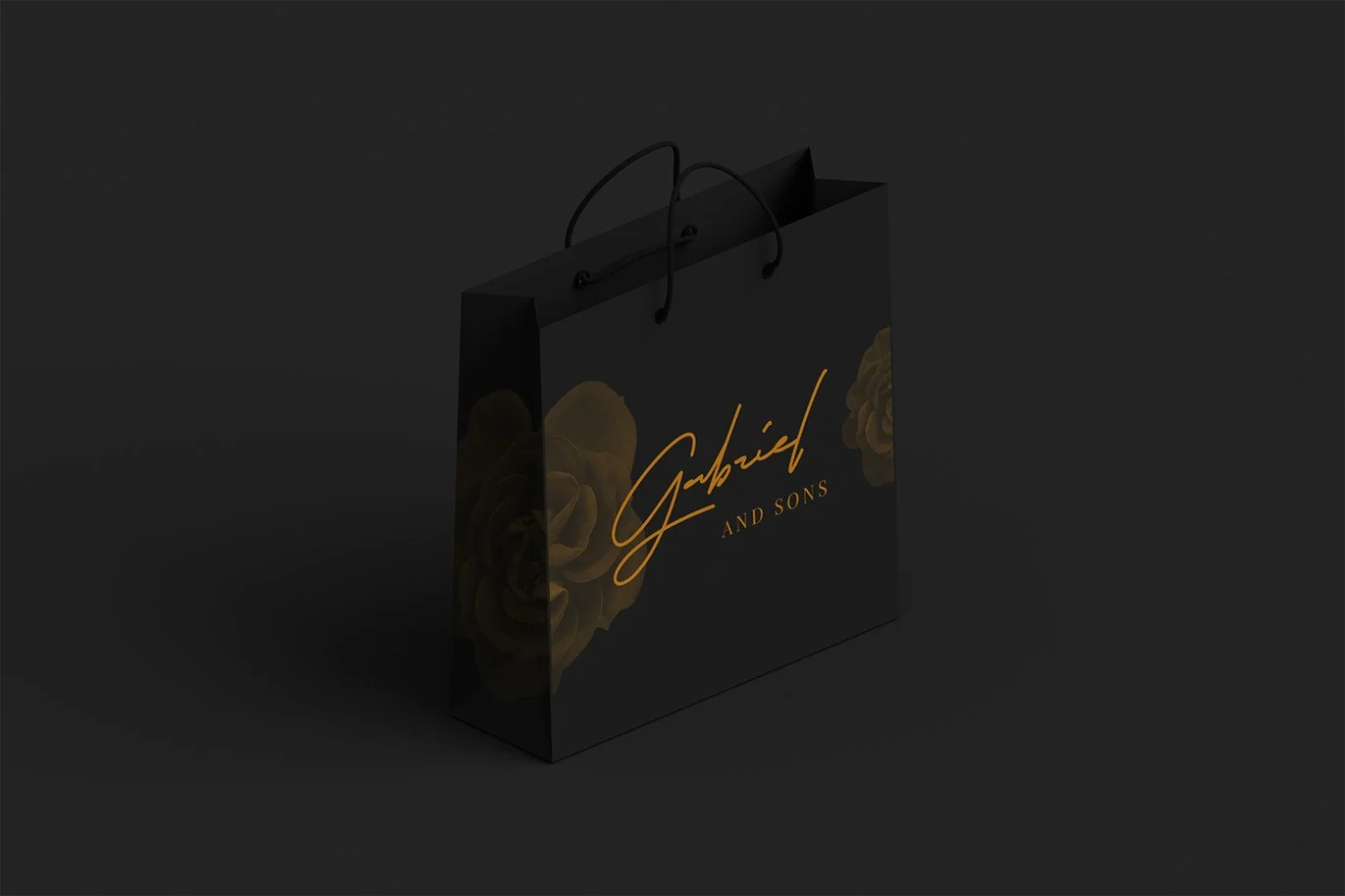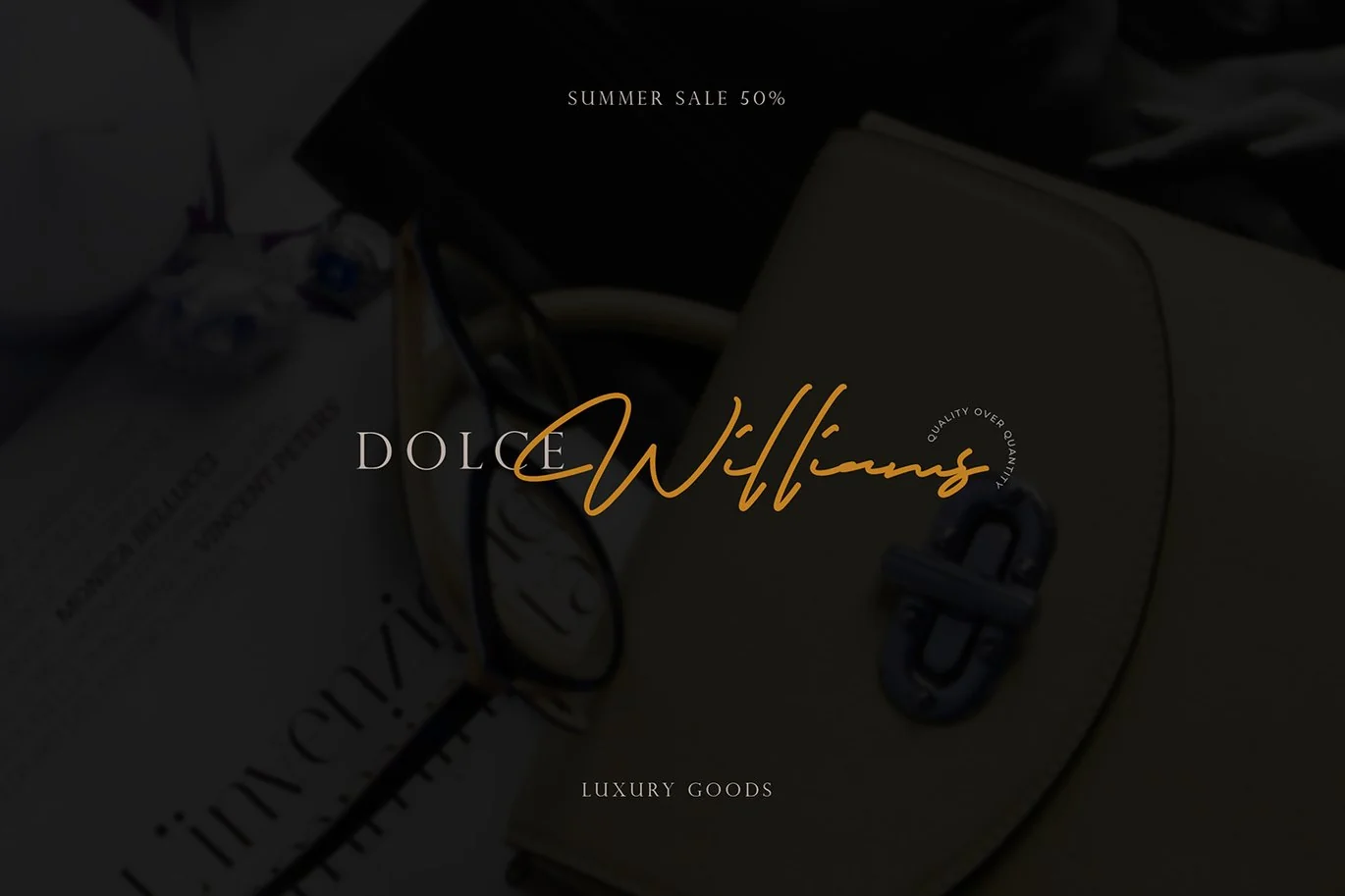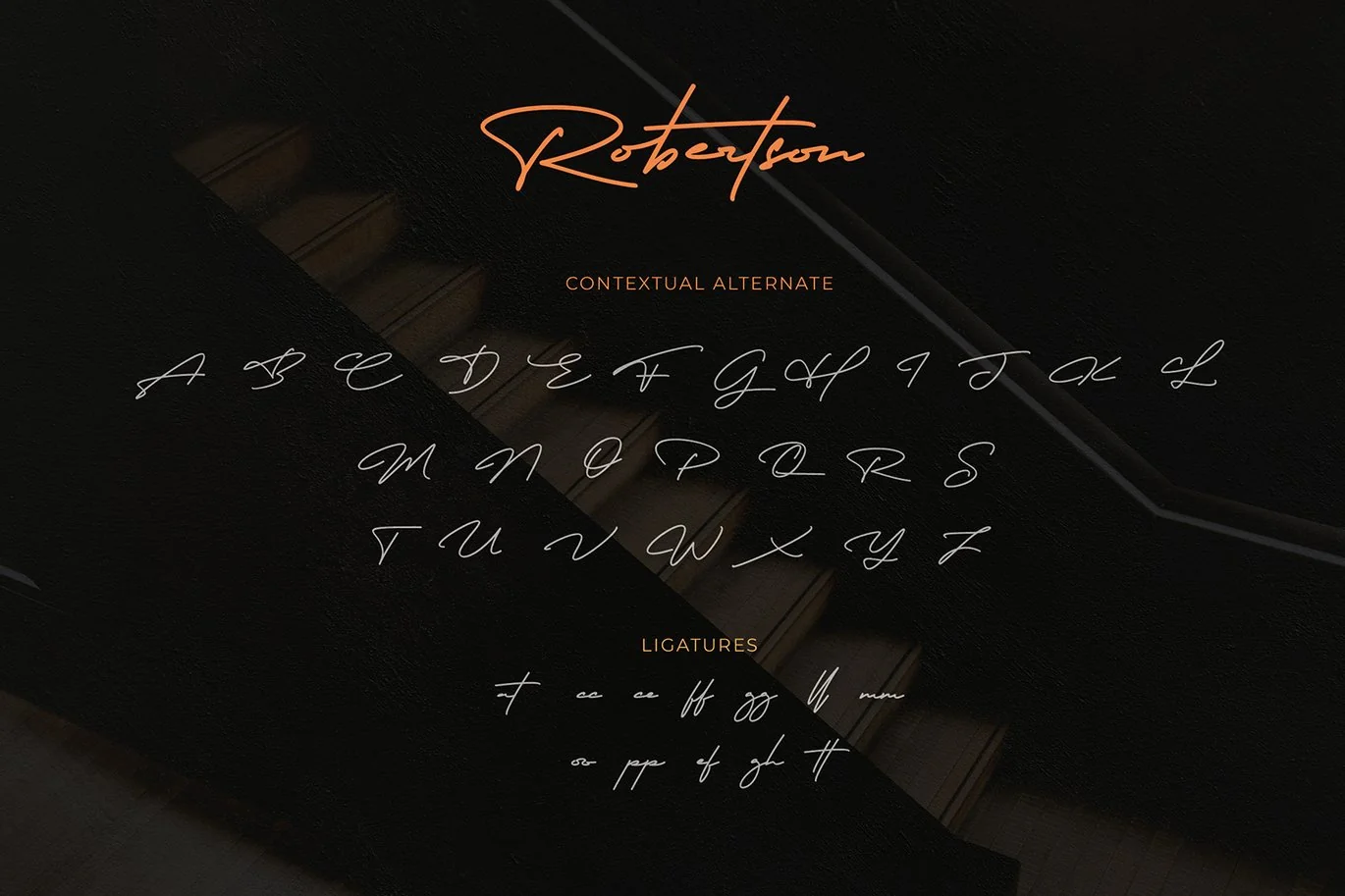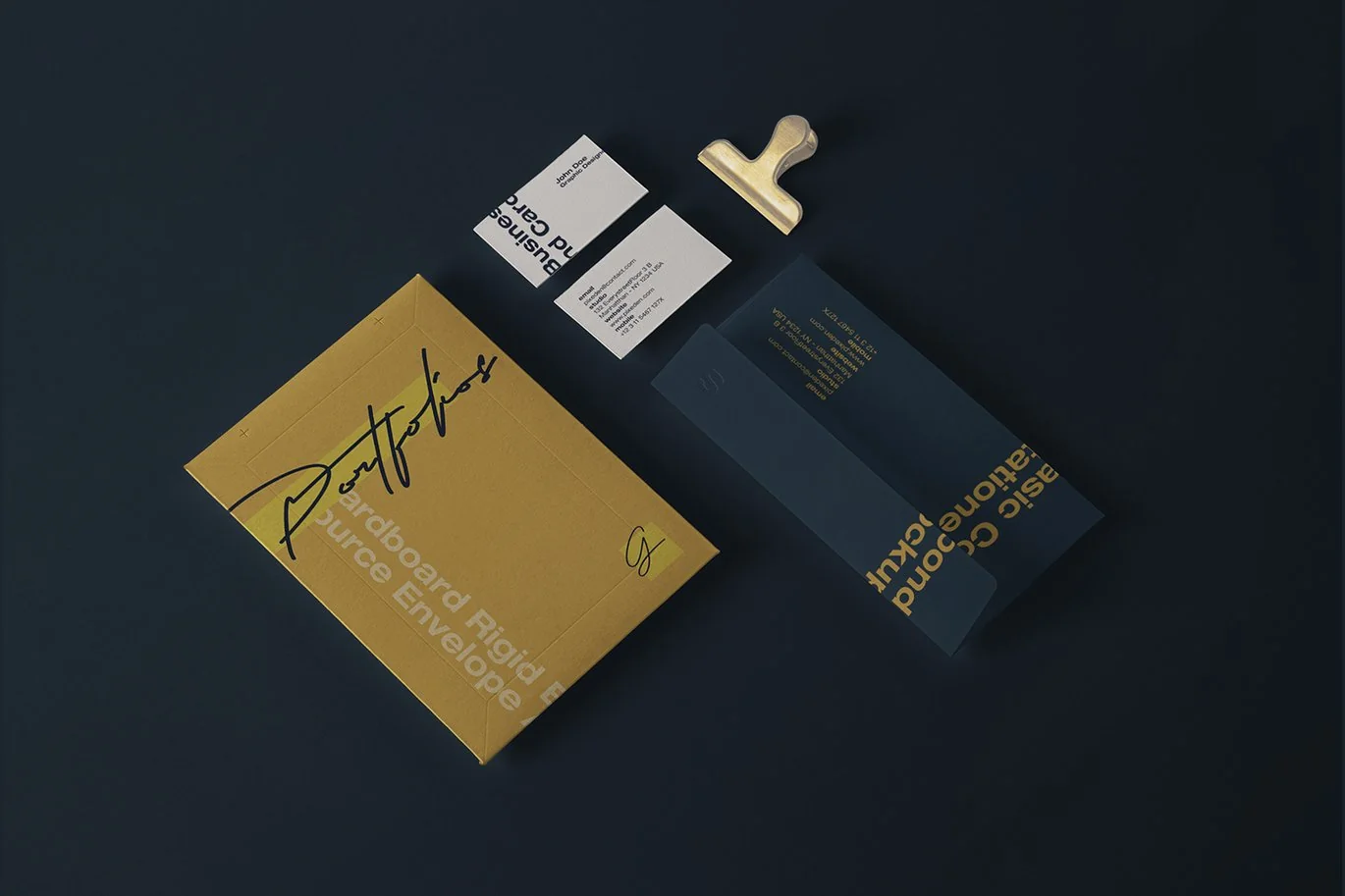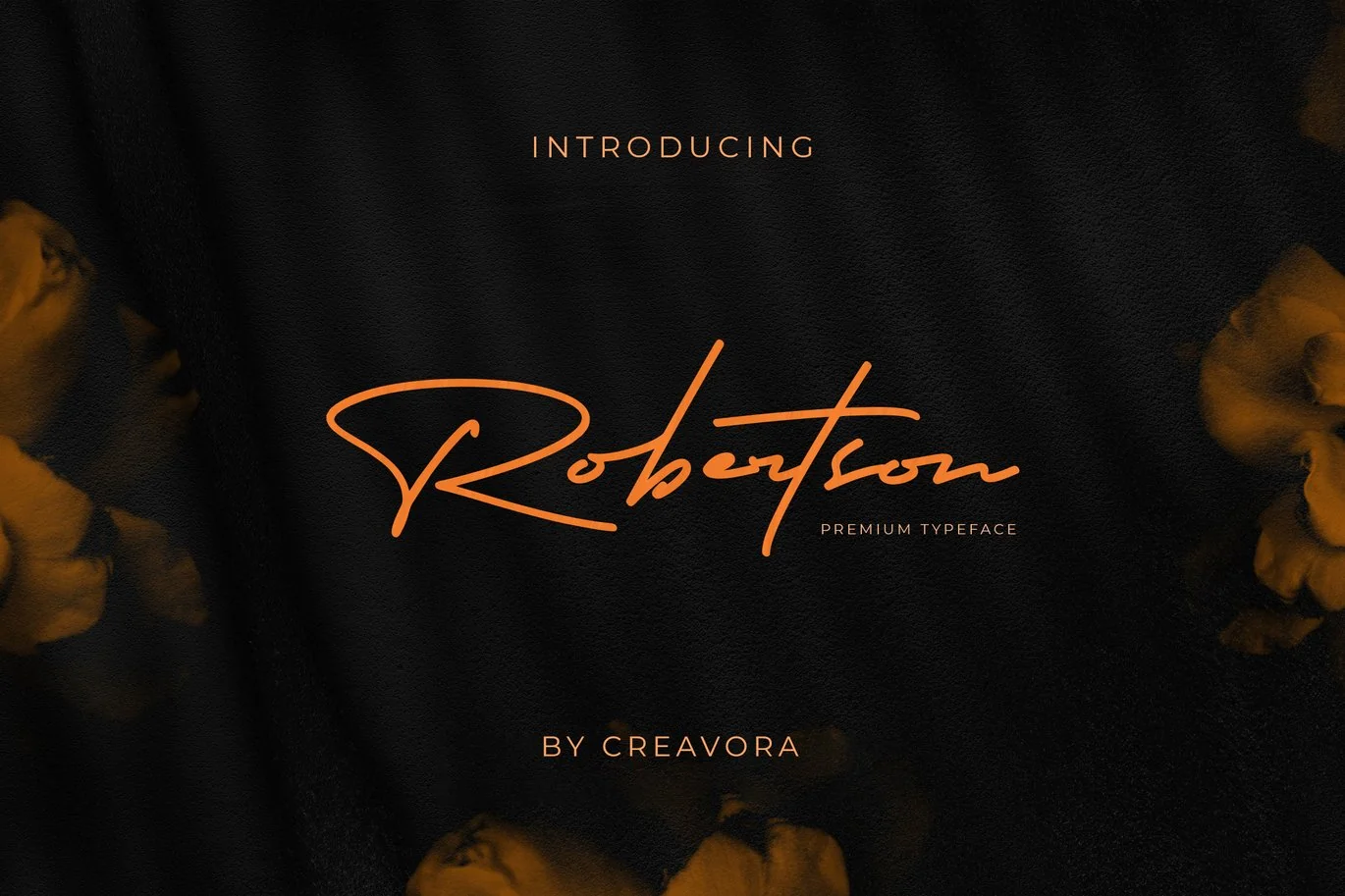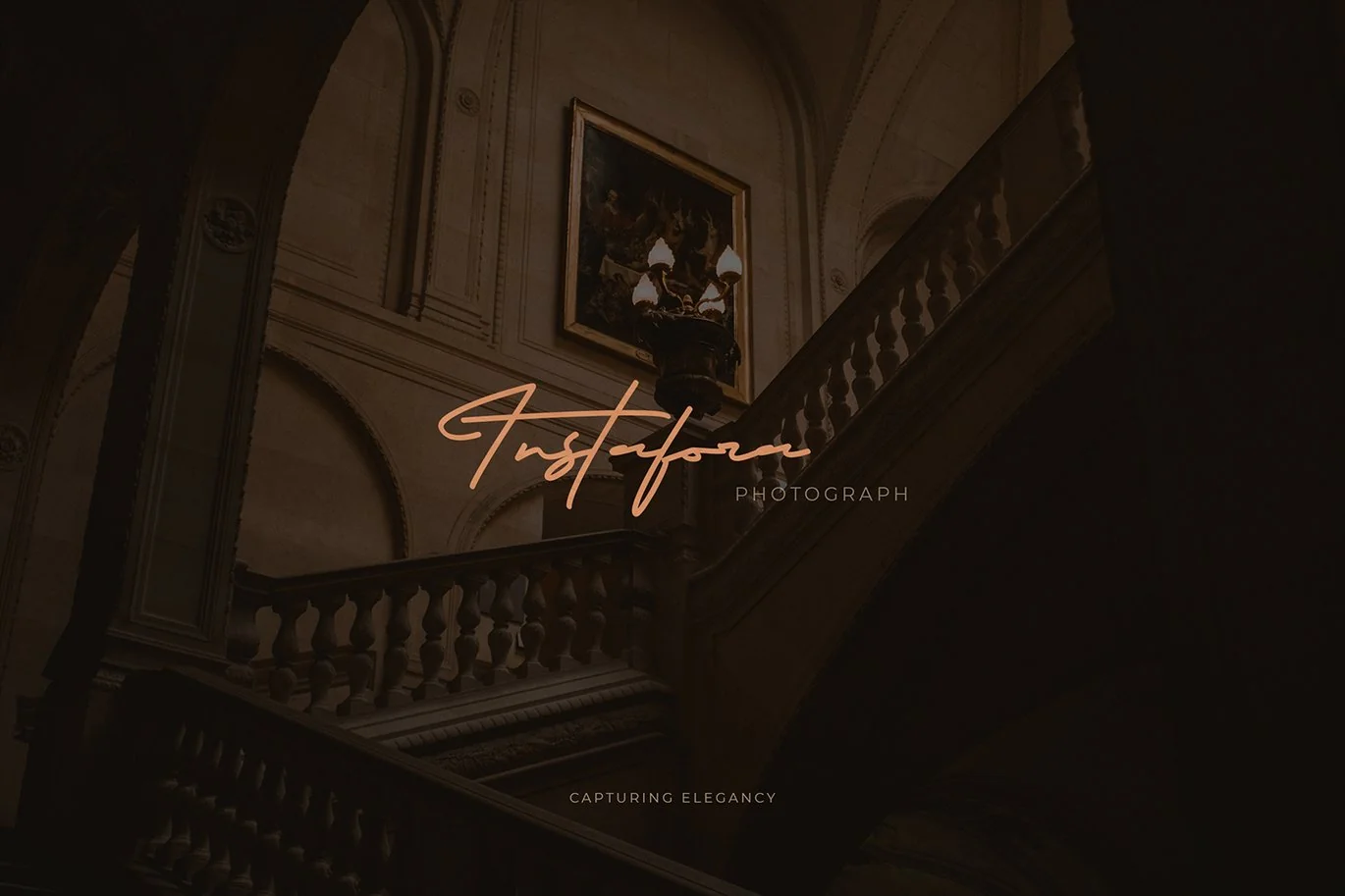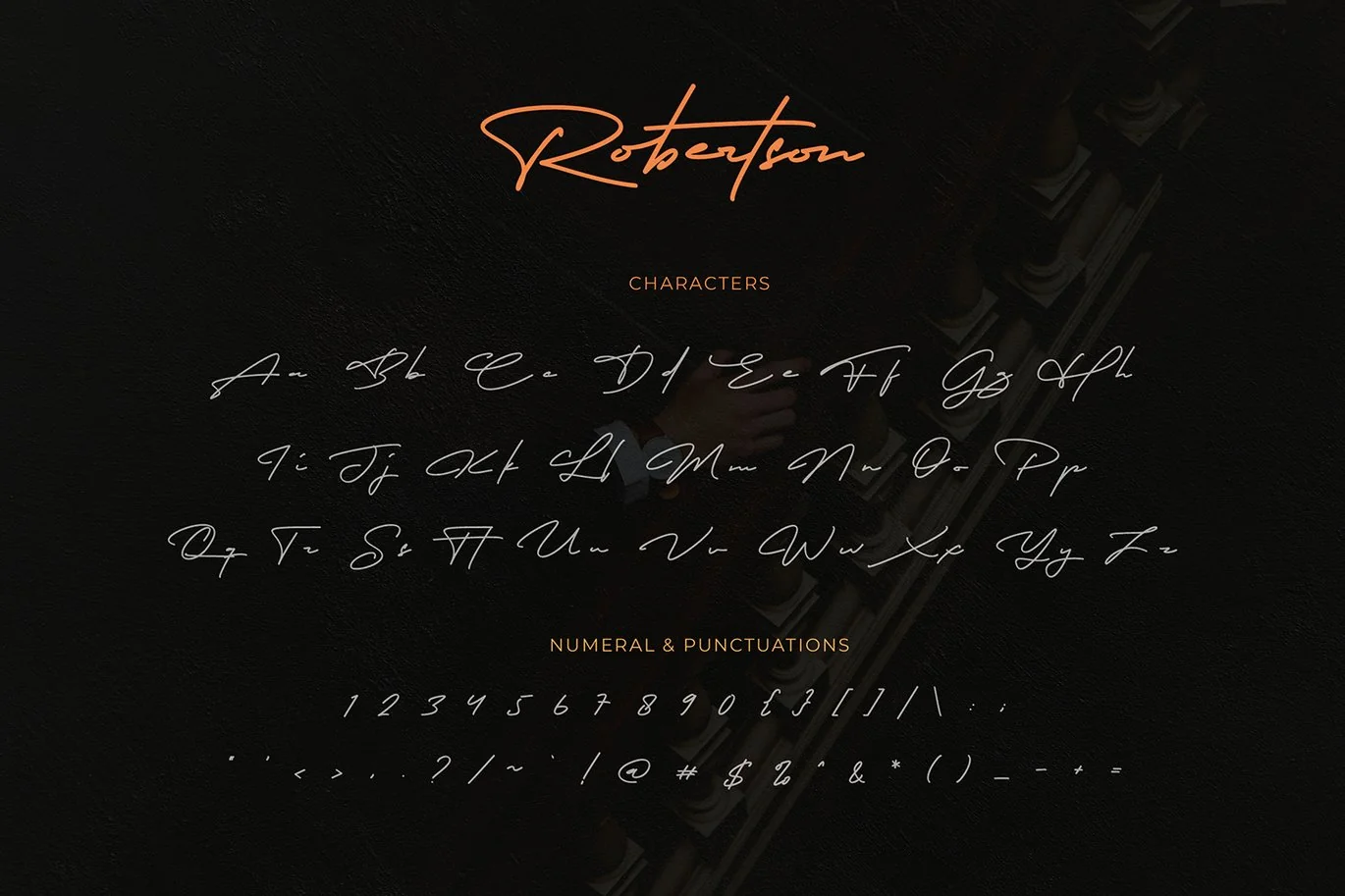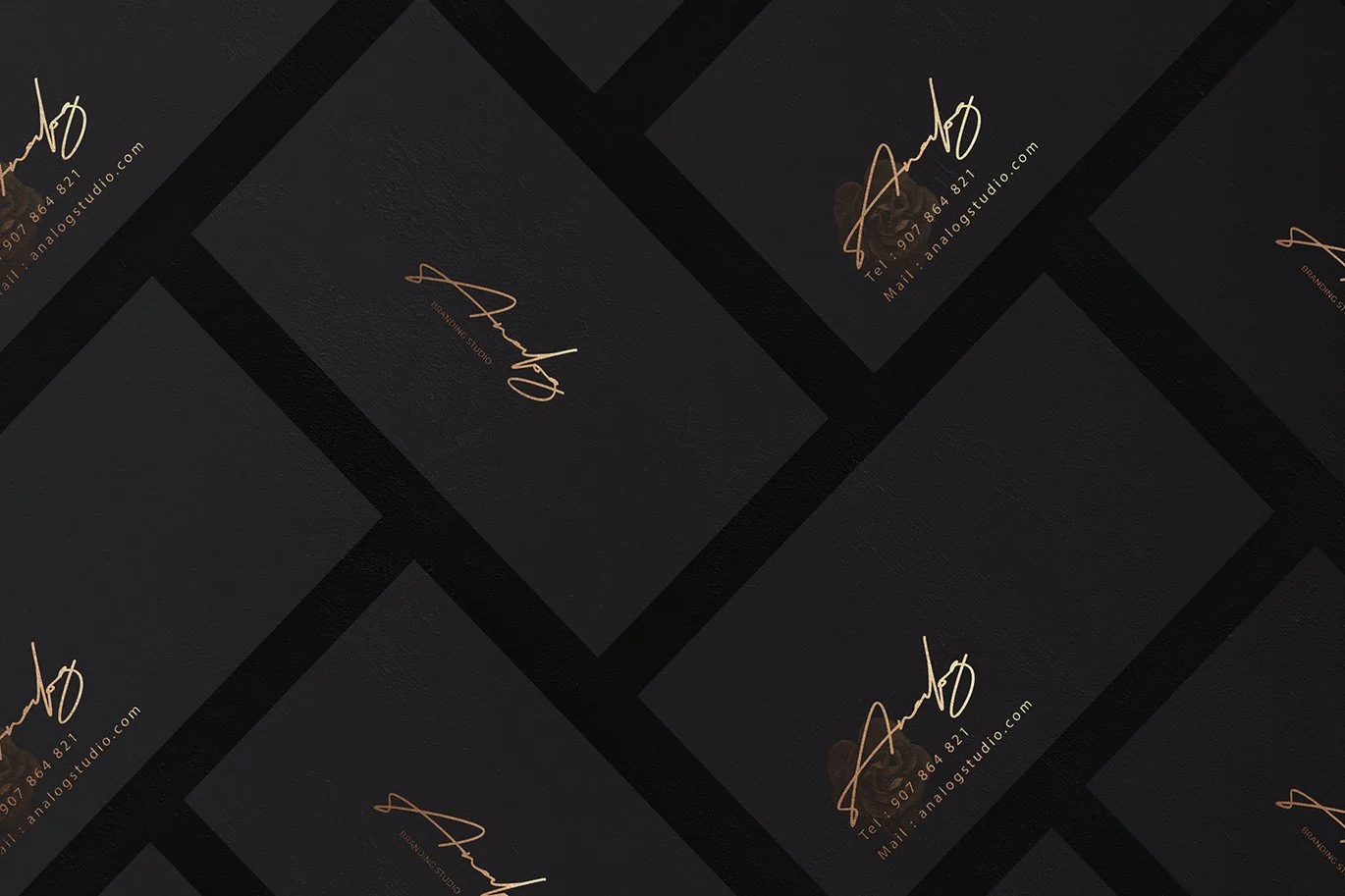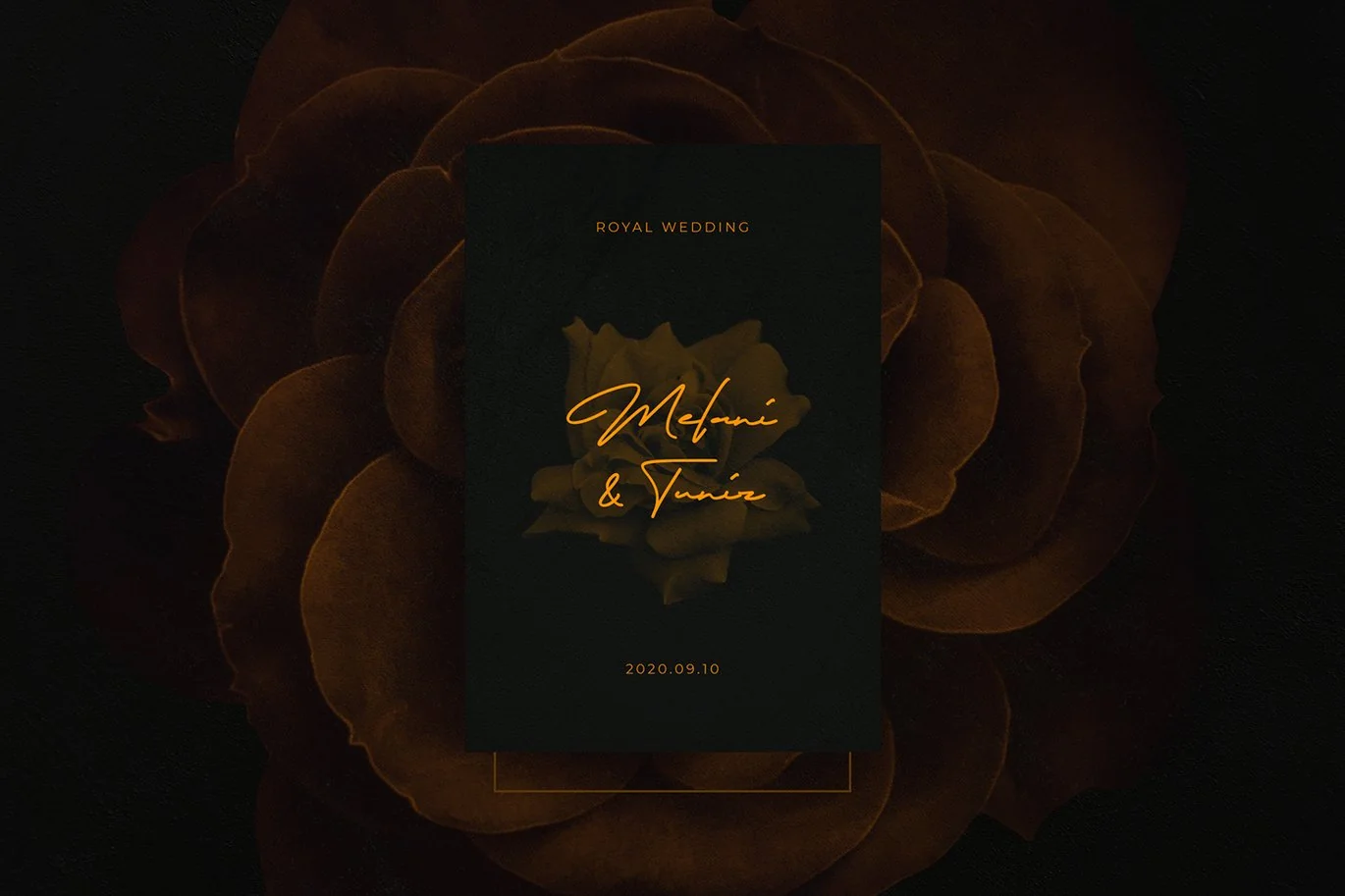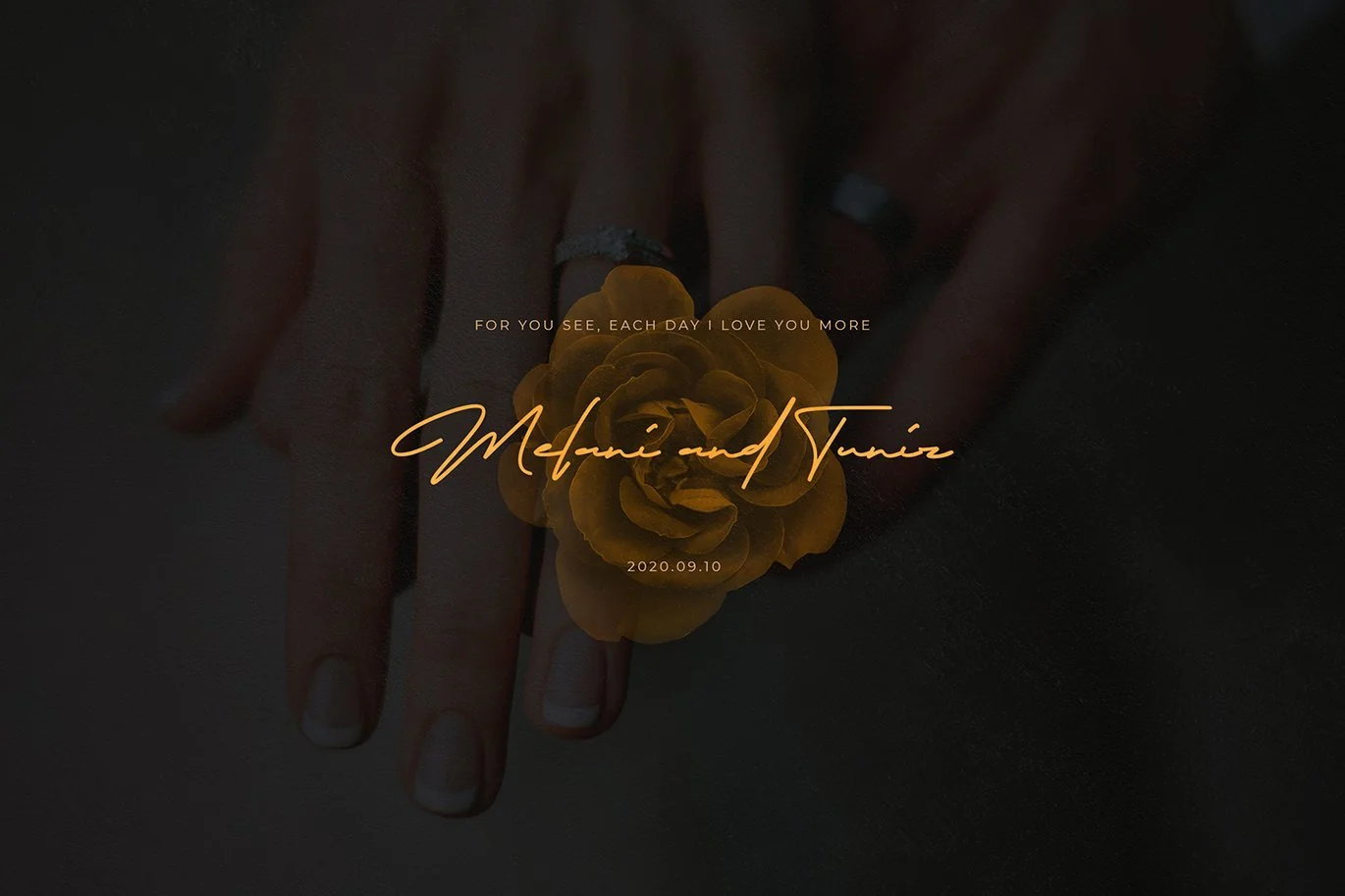
Robertson – Signature Font
Introducing Robertson Font
Robertson feels equally charming and elegant. This stunning handwritten font is a stylish homage to classic calligraphy. Fall in love with its authentic feel and use it to create gorgeous wedding invitations, beautiful stationary art, eye-catching social media posts, and cute greeting cards.